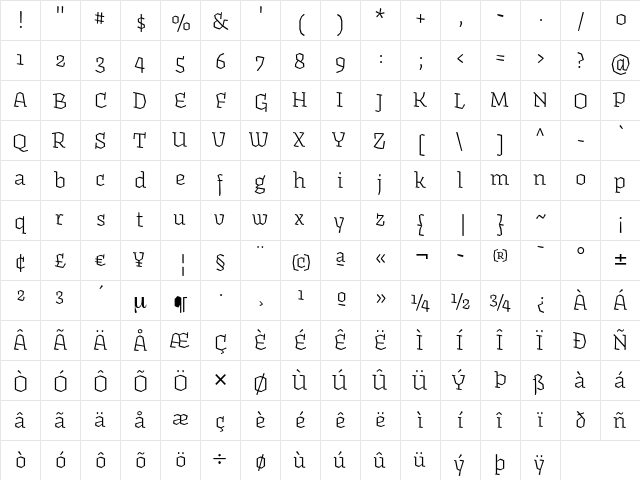
Fakir Regular
| Foundry | Underware |
Design Context for Fakir Typeface
Fakir is a composed and adaptable typeface that performs quietly and consistently across a wide range of design contexts.